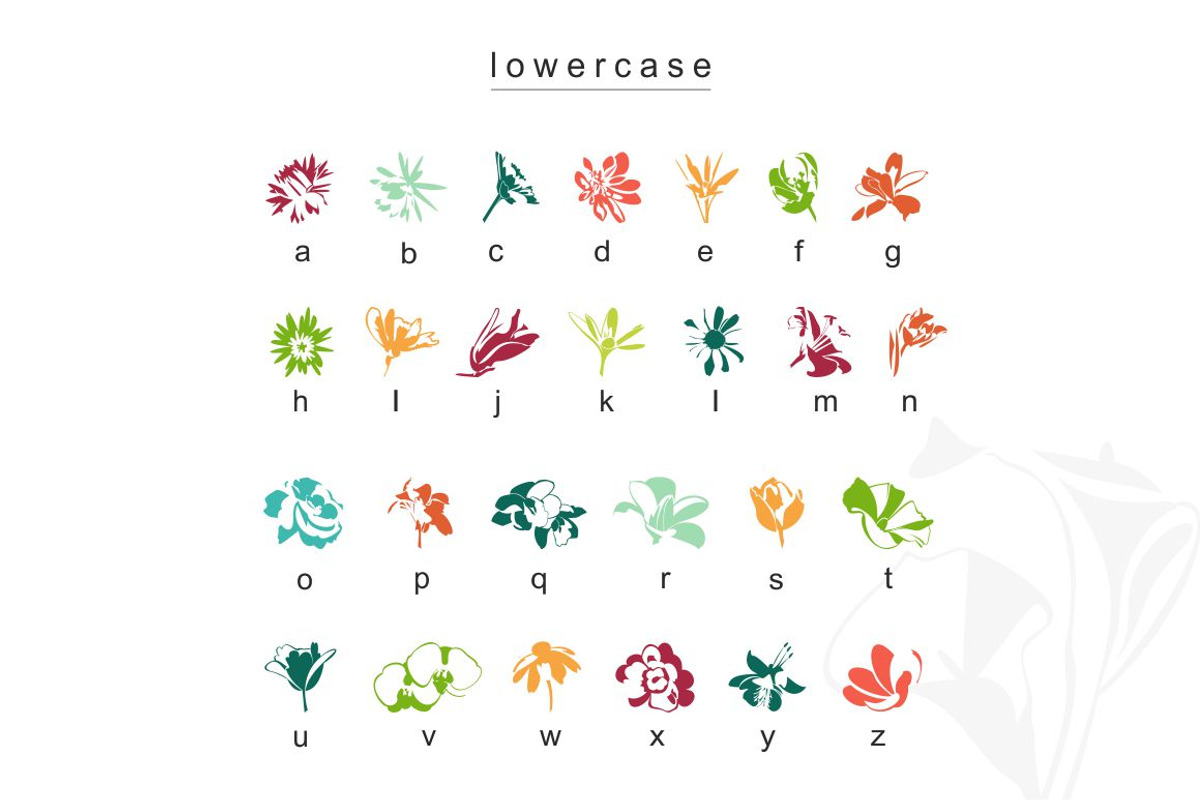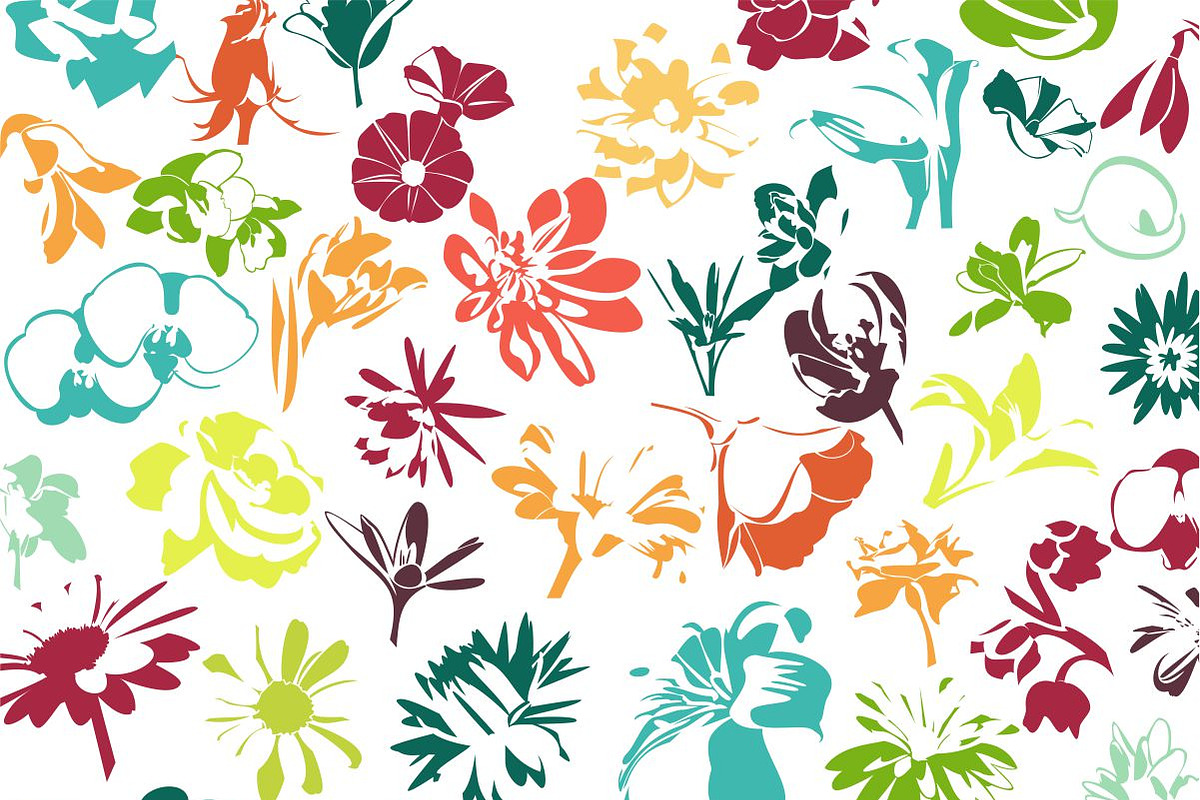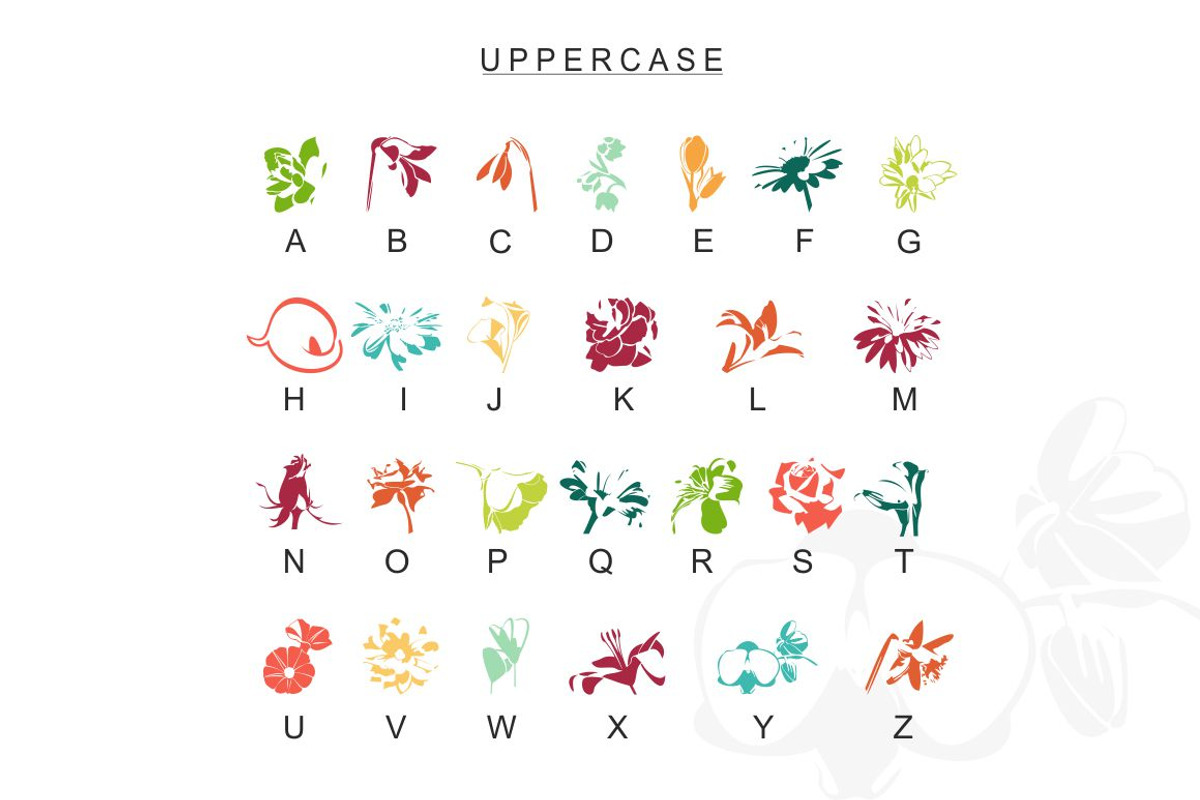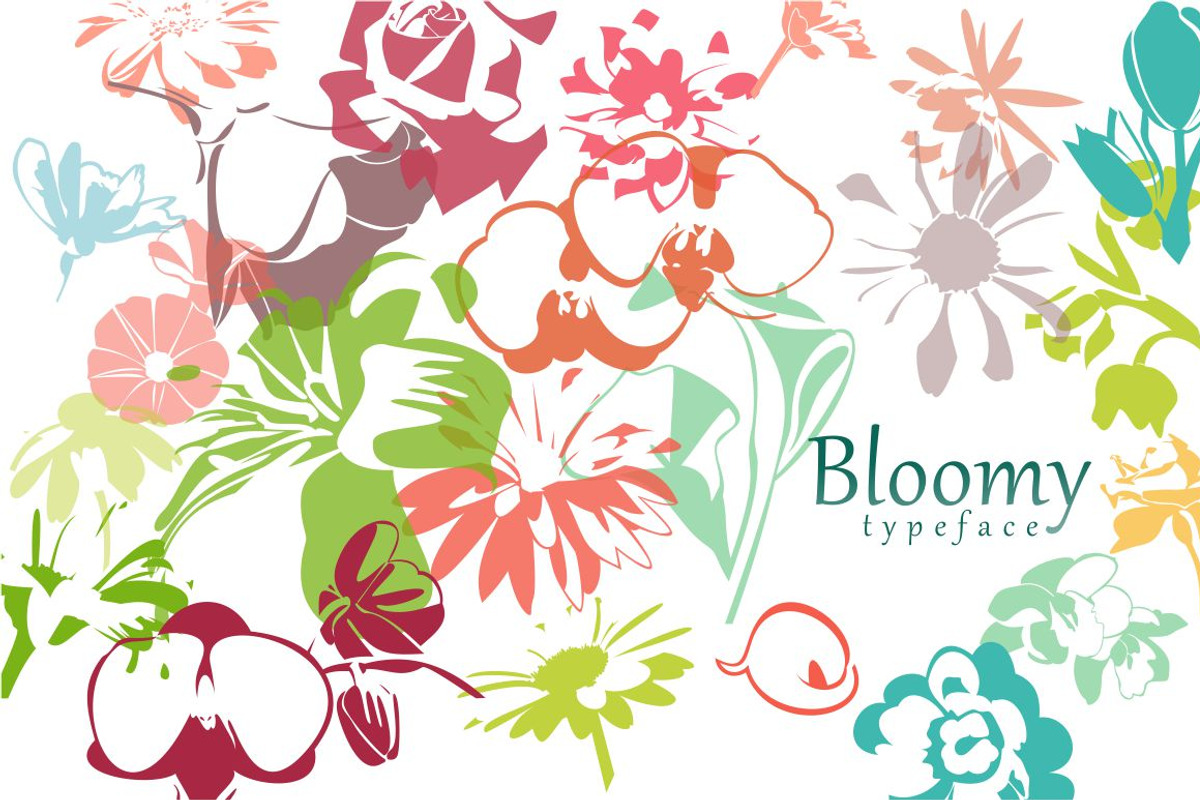
Bloomy typeface
Bloomy typeface by ItsDianaDesign is a font selected for branding, posters, packaging, typography.
Why Bloomy typeface is worth a look
Bloomy typeface by ItsDianaDesign fits naturally into Branding, posters, packaging, typography.